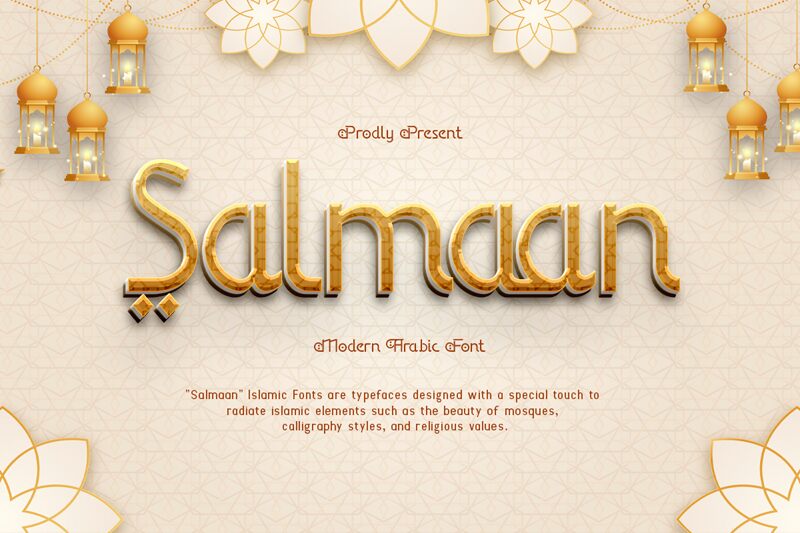
Salmaan font, designed by Kong Font, is a free font typeface that seamlessly blends Arabic influences with modern design principles. This ornamental and elegant font captures cultural richness, offering visually intricate and sophisticated letterforms. With a decorative and flowing style, its artistic and formal presence aims to enhance the text’s allure, making it an excellent choice for projects seeking cultural depth and elegance.